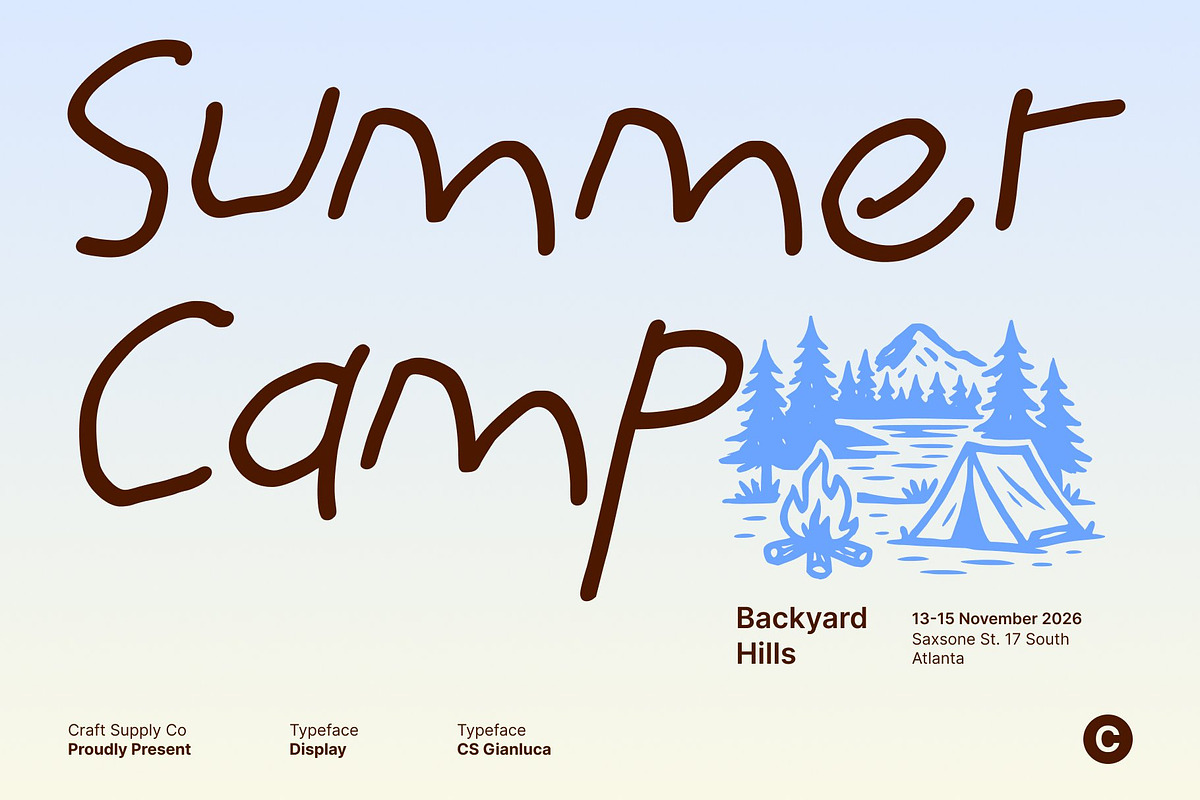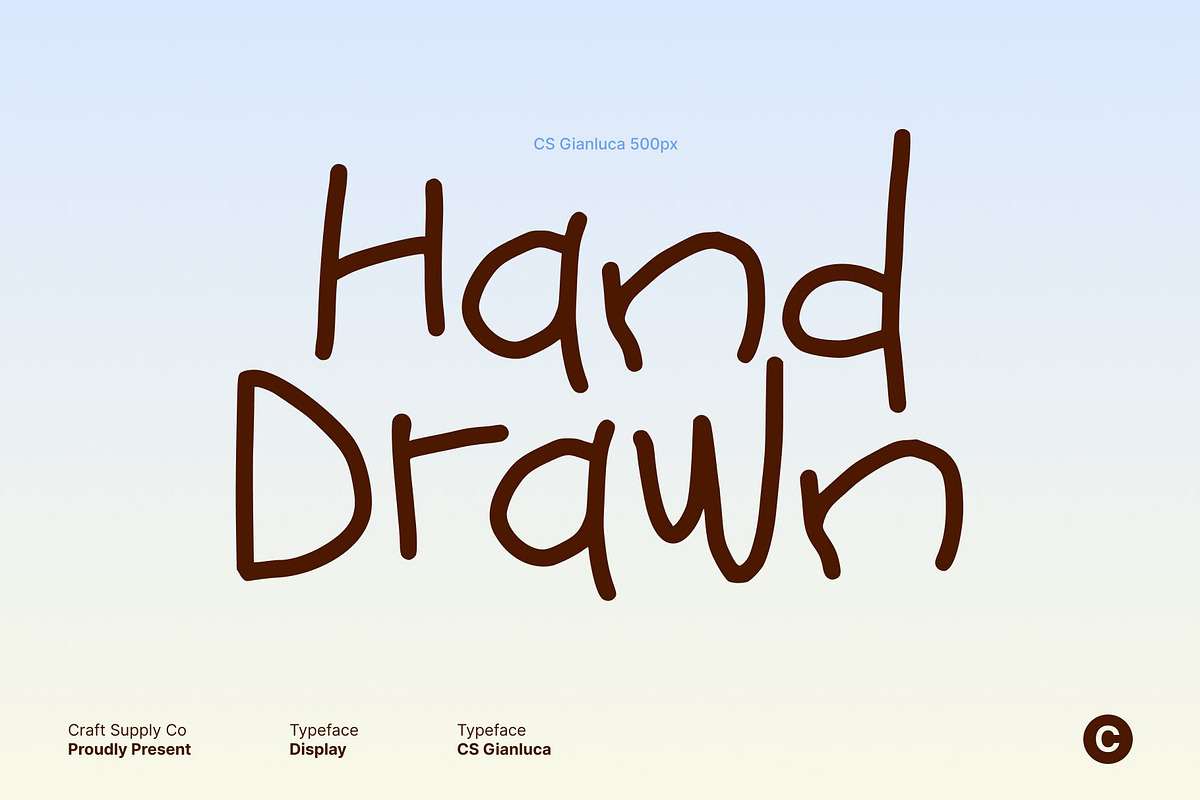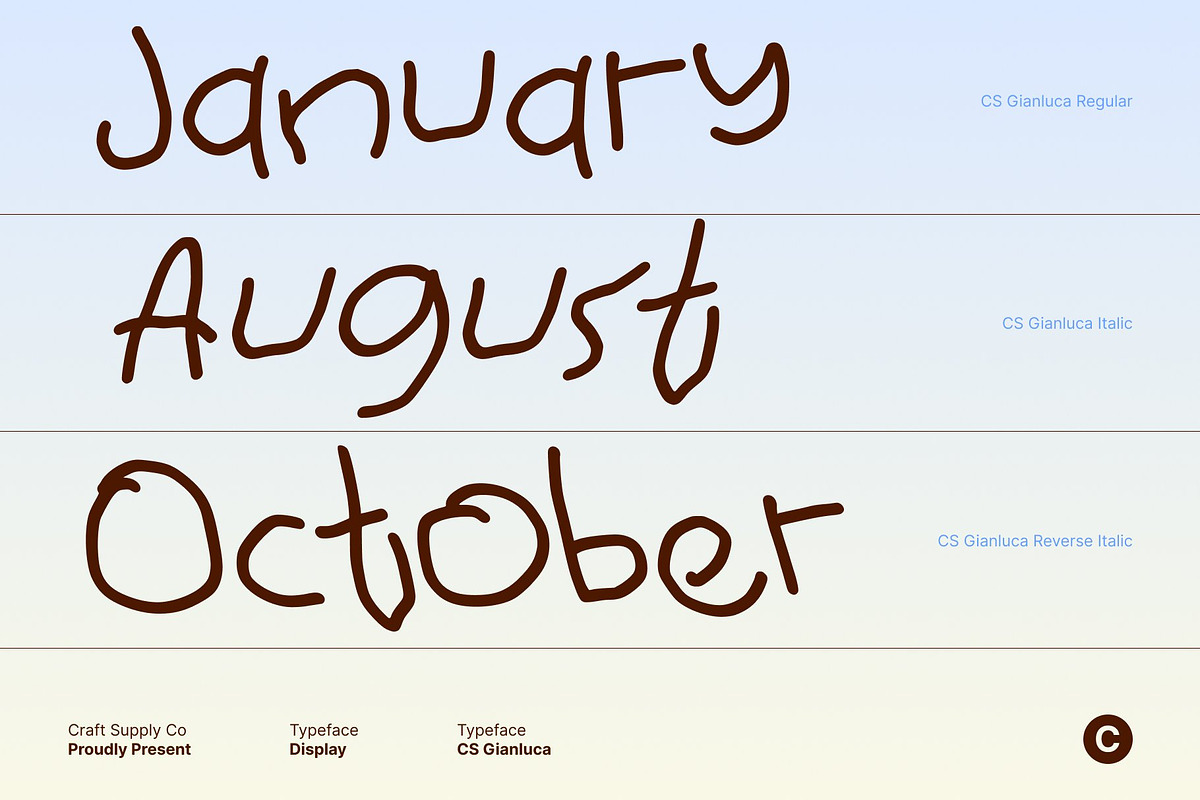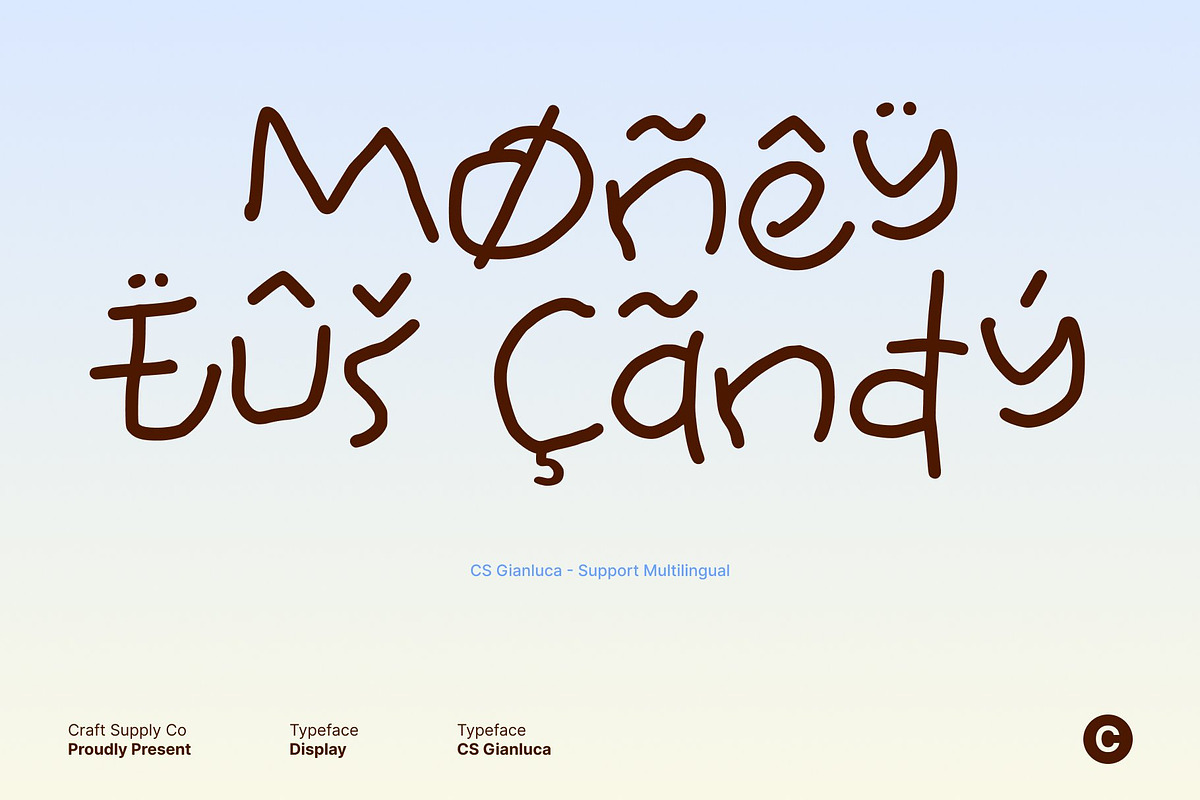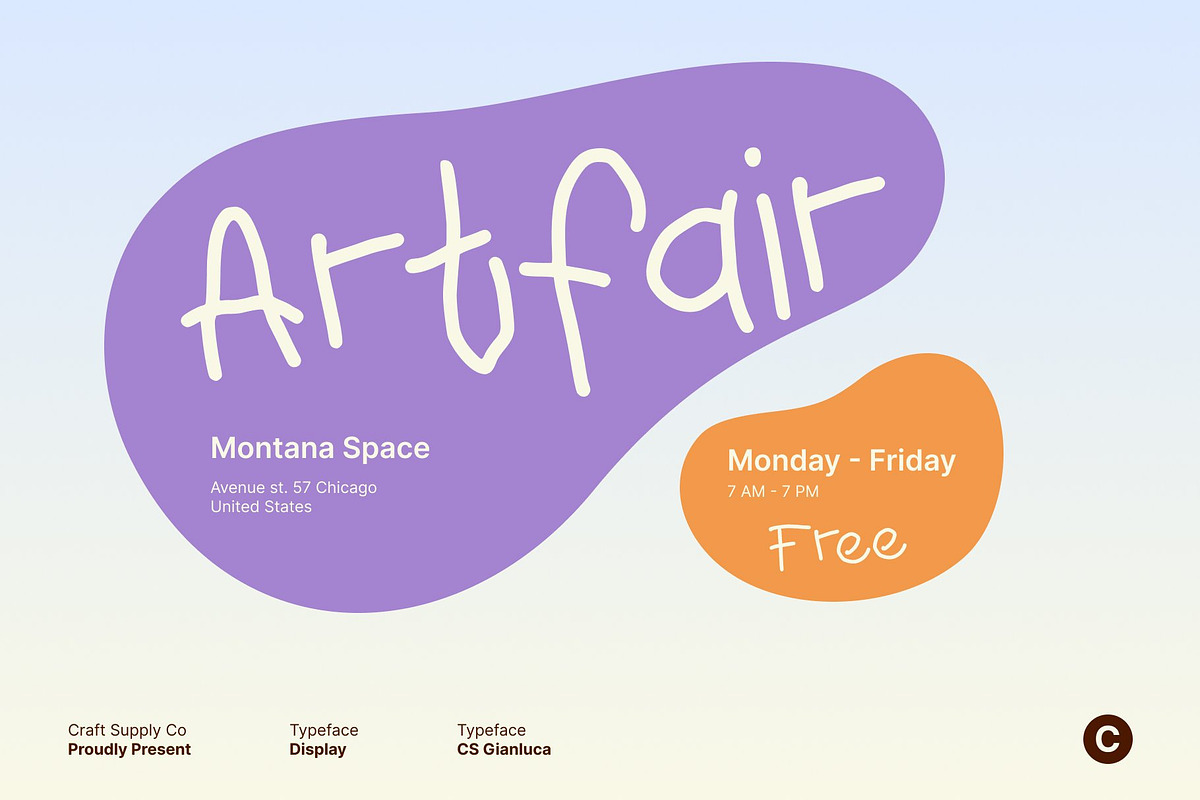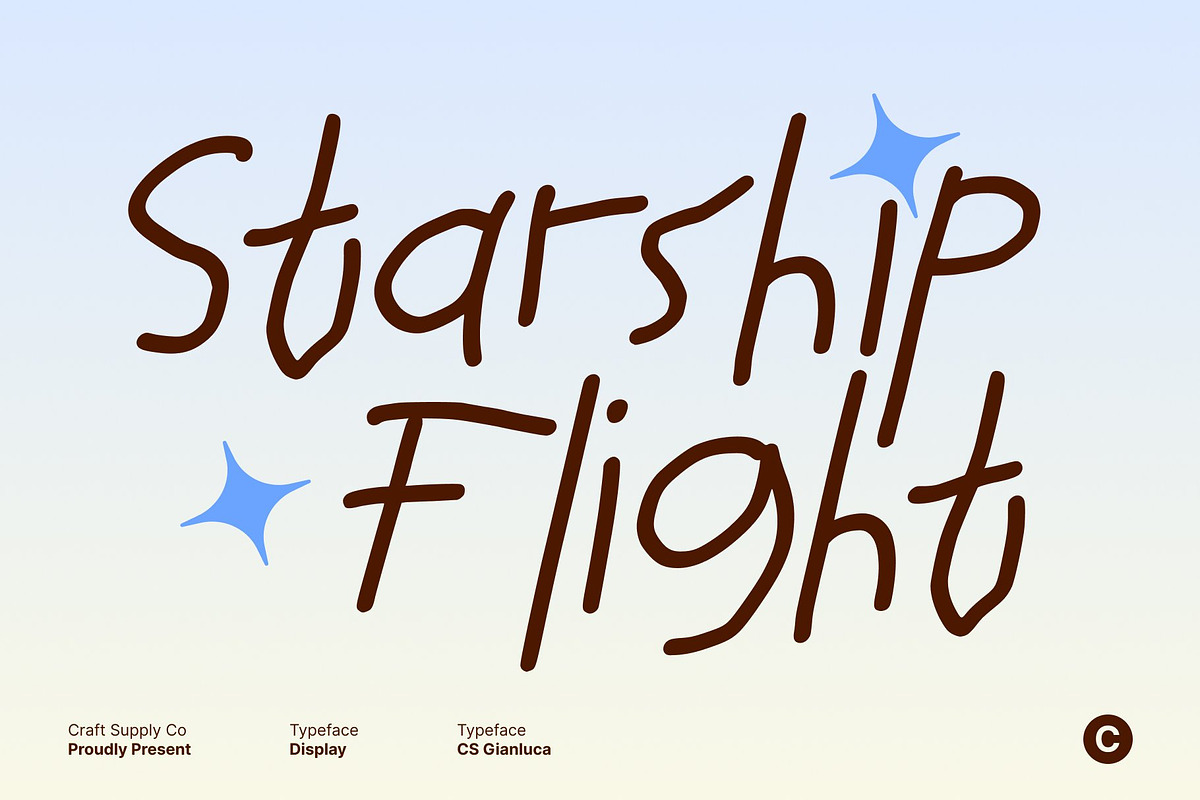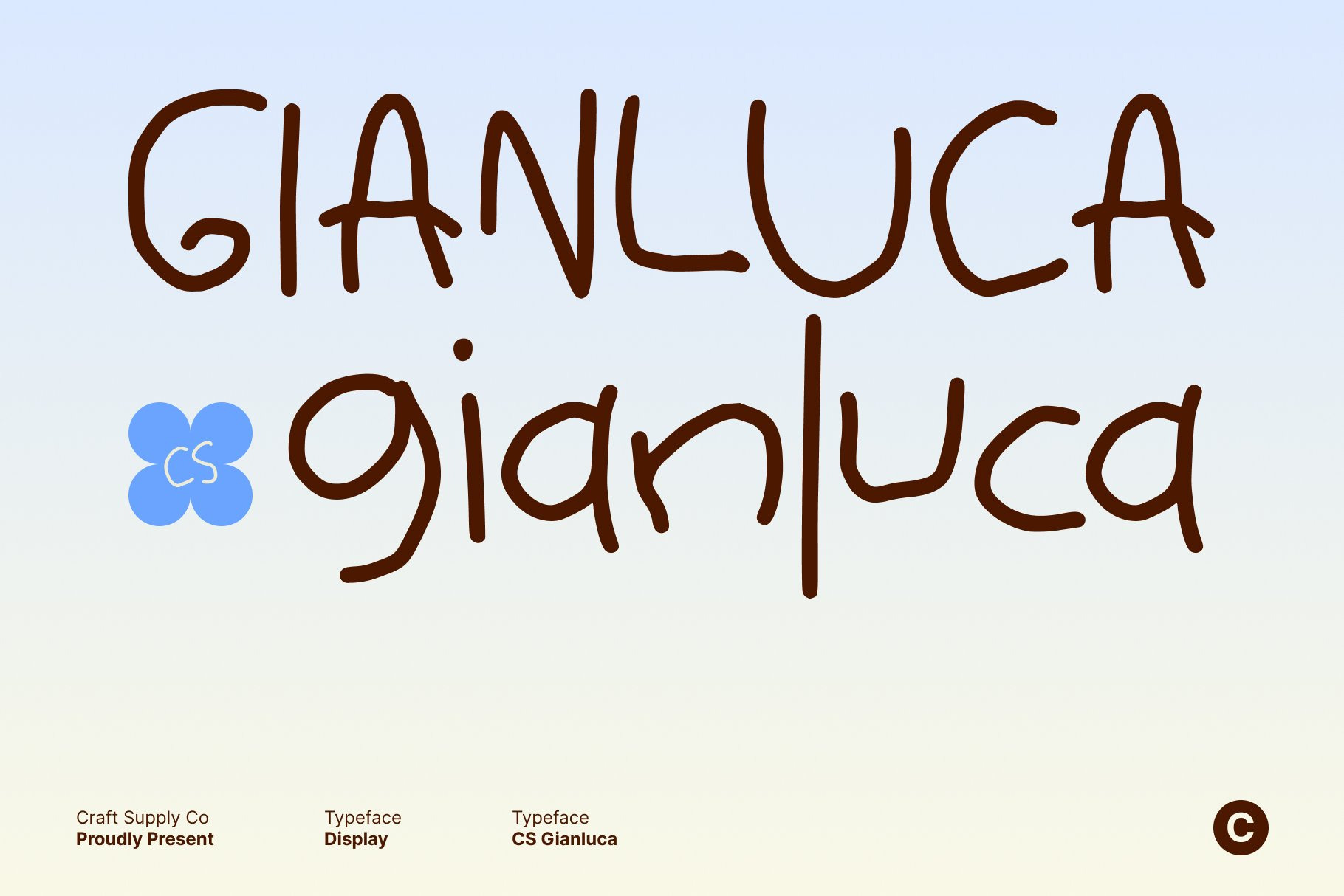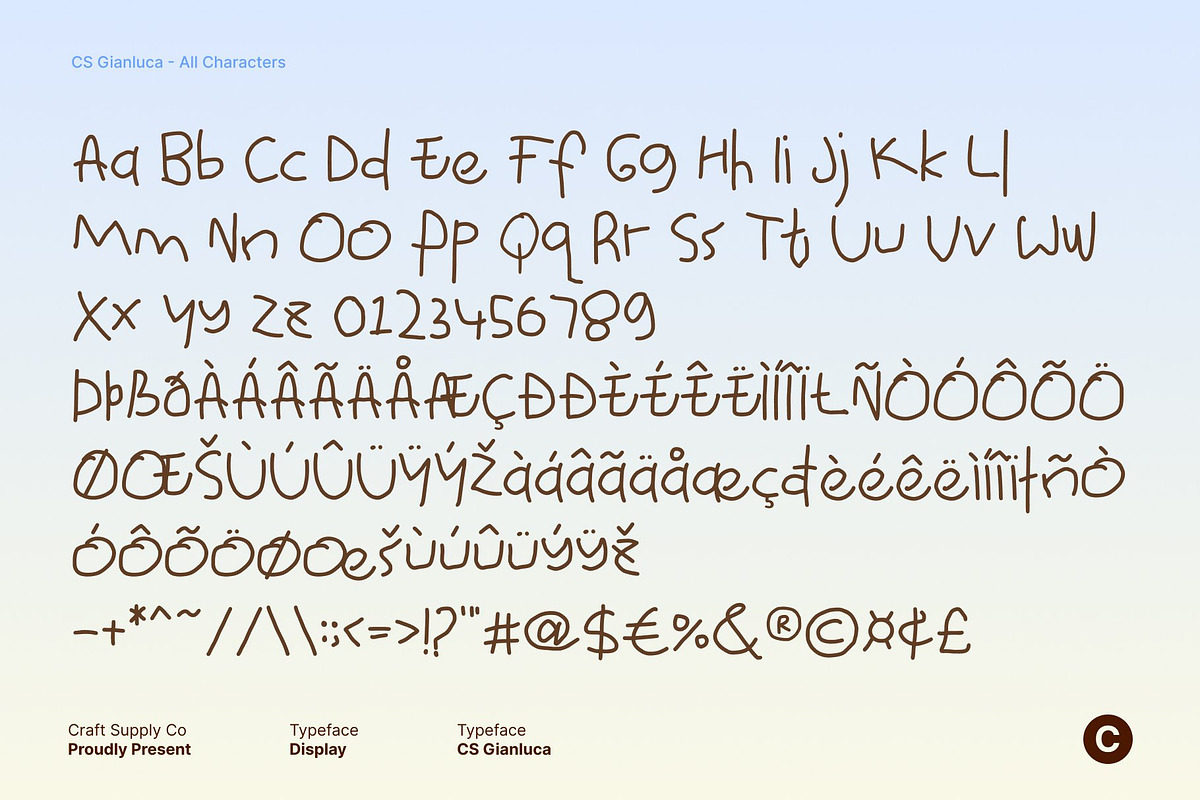
CS Gianluca – Messy Handwritten Font
CS Gianluca – The Art of Messy Expression
Playful Messy Font with Raw Character This is a gritty yet stylish messy font that embraces imperfection with confidence. Designed to look irregular, spontaneous, and freely scribbled, it captures the essence of unfiltered creativity. Each letter dances with personality and unpredictability, giving your design a natural, hand-drawn charm that feels alive and authentic.
Irregular Shapes for Unique Visual Rhythm The uneven strokes and sketch-like forms of this font bring texture and movement to your typography. Its intentionally rough edges make it stand out from polished fonts, offering a sense of individuality and artistic rebellion. It’s imperfect in all the right ways perfect for designs that want to feel playful, human, and full of character.
Fun, Creative, and Full of Energy This font radiates fun and spontaneity, making it ideal for casual or youth-oriented designs. Whether it’s used in children’s writing projects, playful posters, or quirky branding, it instantly adds warmth and personality. Its messy look captures the carefree joy of doodling and creative exploration.
Perfect for Playful and Expressive Projects From kids’ designs and handmade crafts to lifestyle graphics and fun packaging, this font adds an expressive, approachable feel. It’s not about perfection it’s about personality. This font celebrates creativity in its purest form, bringing bold energy and authenticity to every playful project.